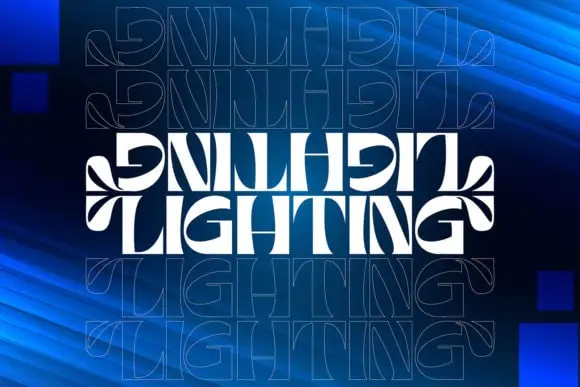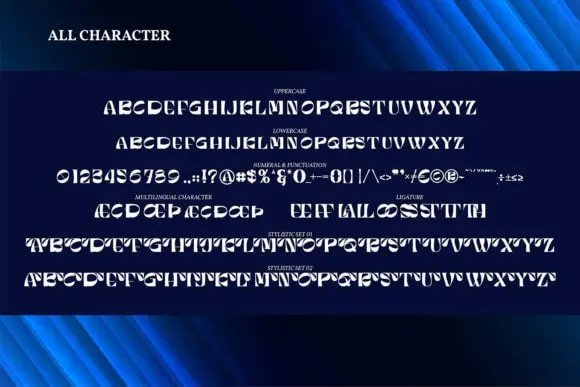
The Vunira-Klasvera Font is a unique typeface that combines elegance with modern design. It features a variety of styles and weights, making it suitable for a wide range of applications.
- Styles: Regular, Bold, Italic
- Weights: Light, Medium, Heavy
Utilize the Vunira-Klasvera Font for branding, logos, web design, print materials, and user interfaces. Its versatile nature allows for creative freedom while maintaining readability and aesthetic appeal.